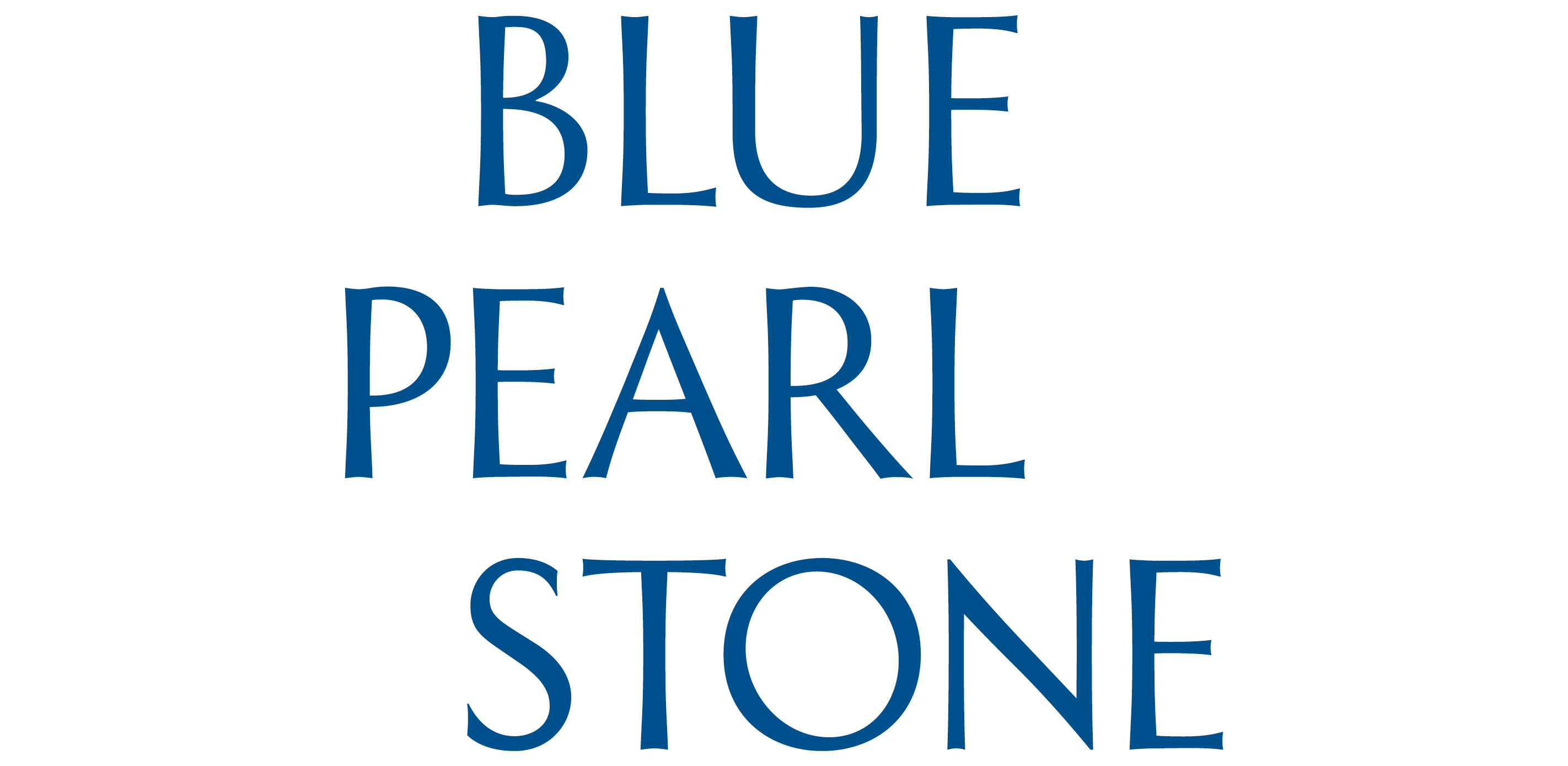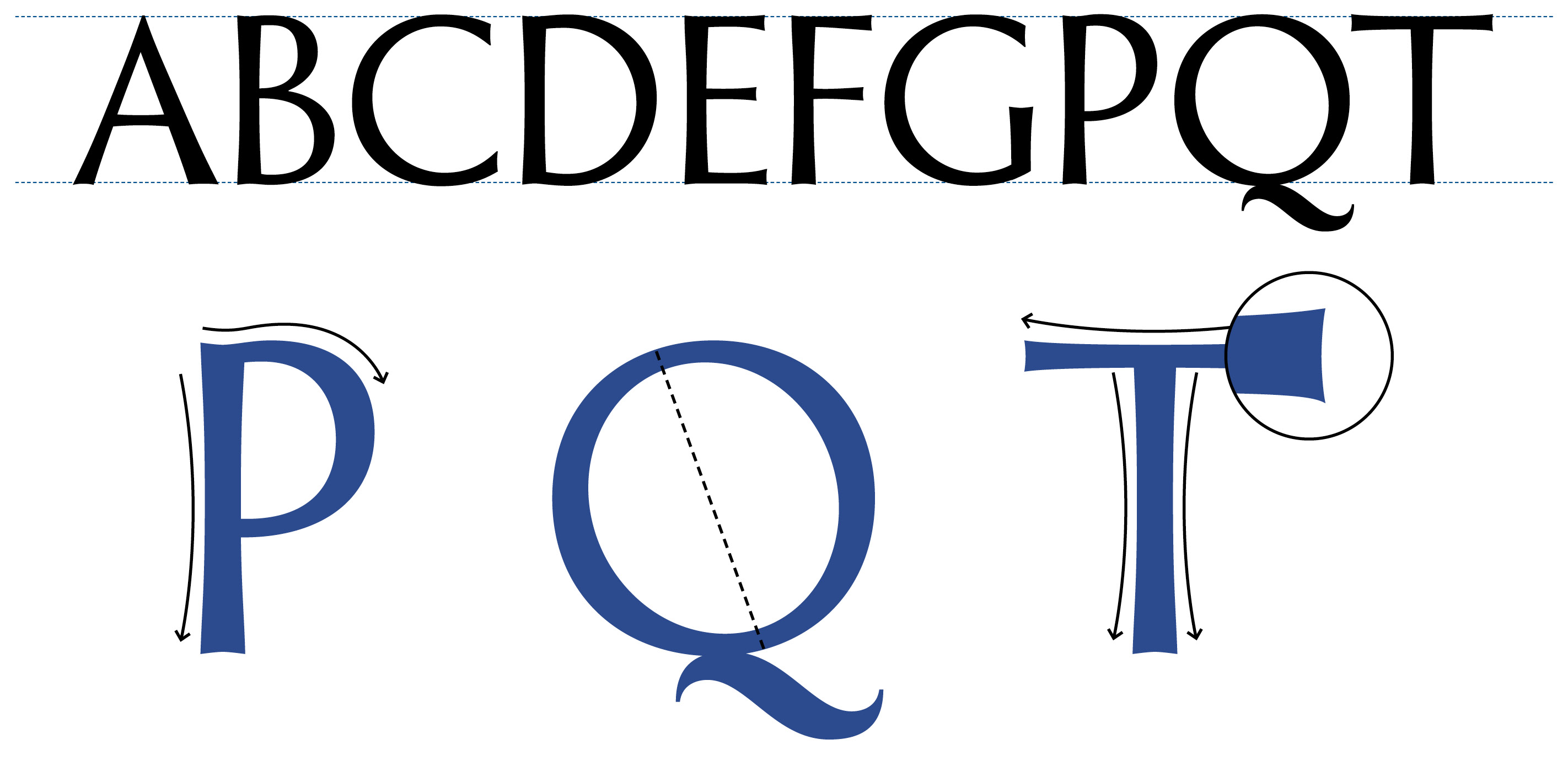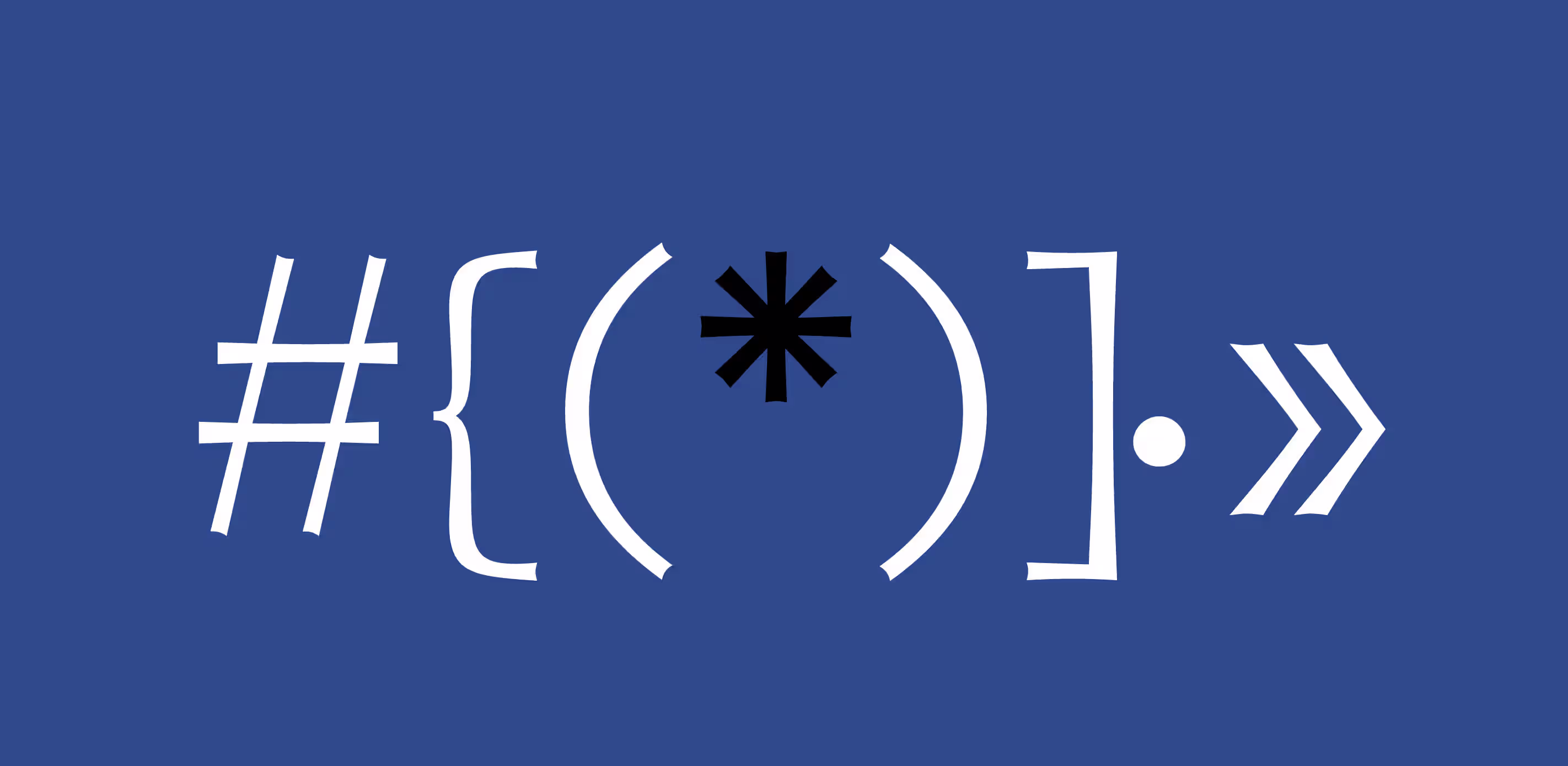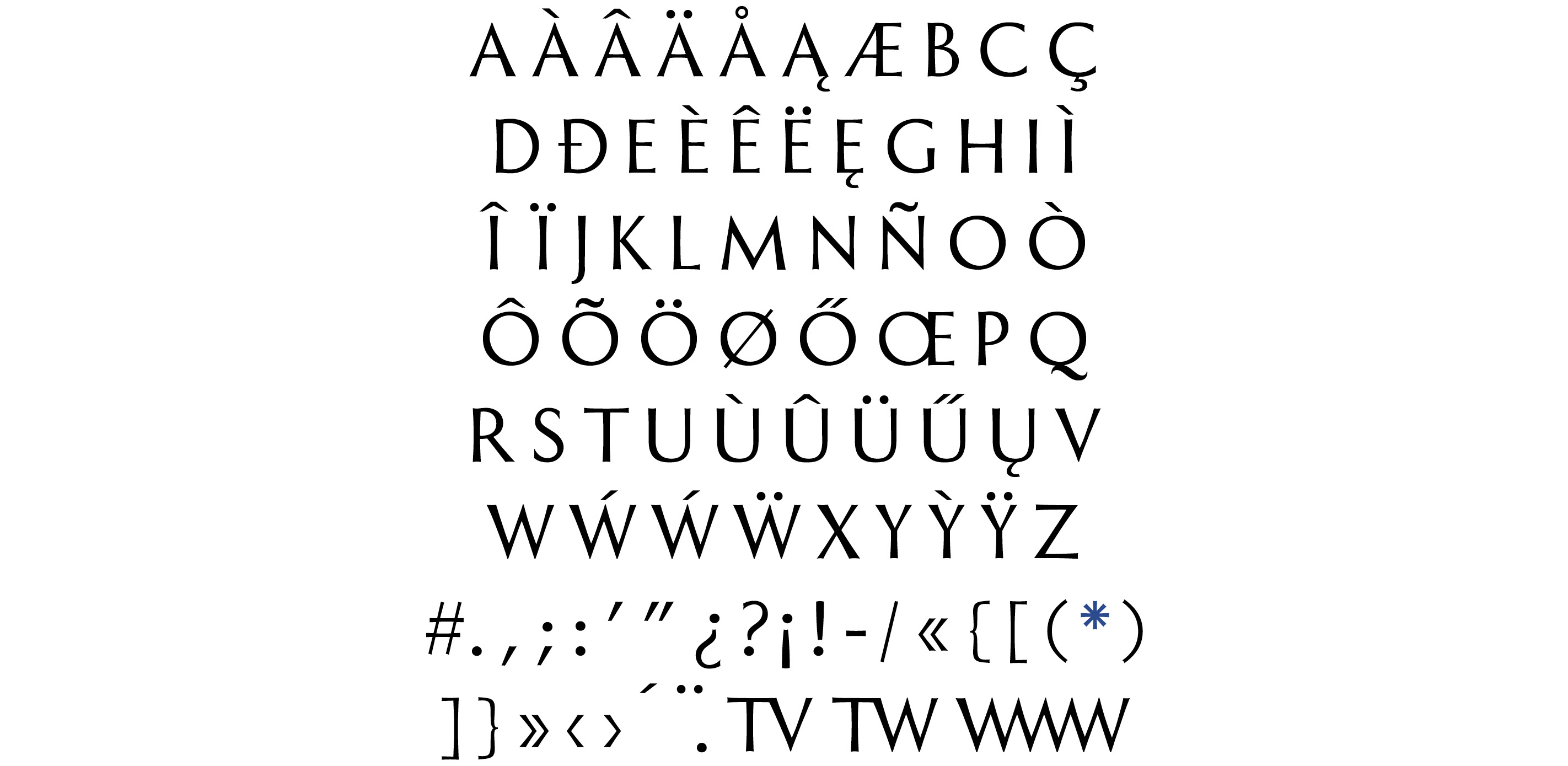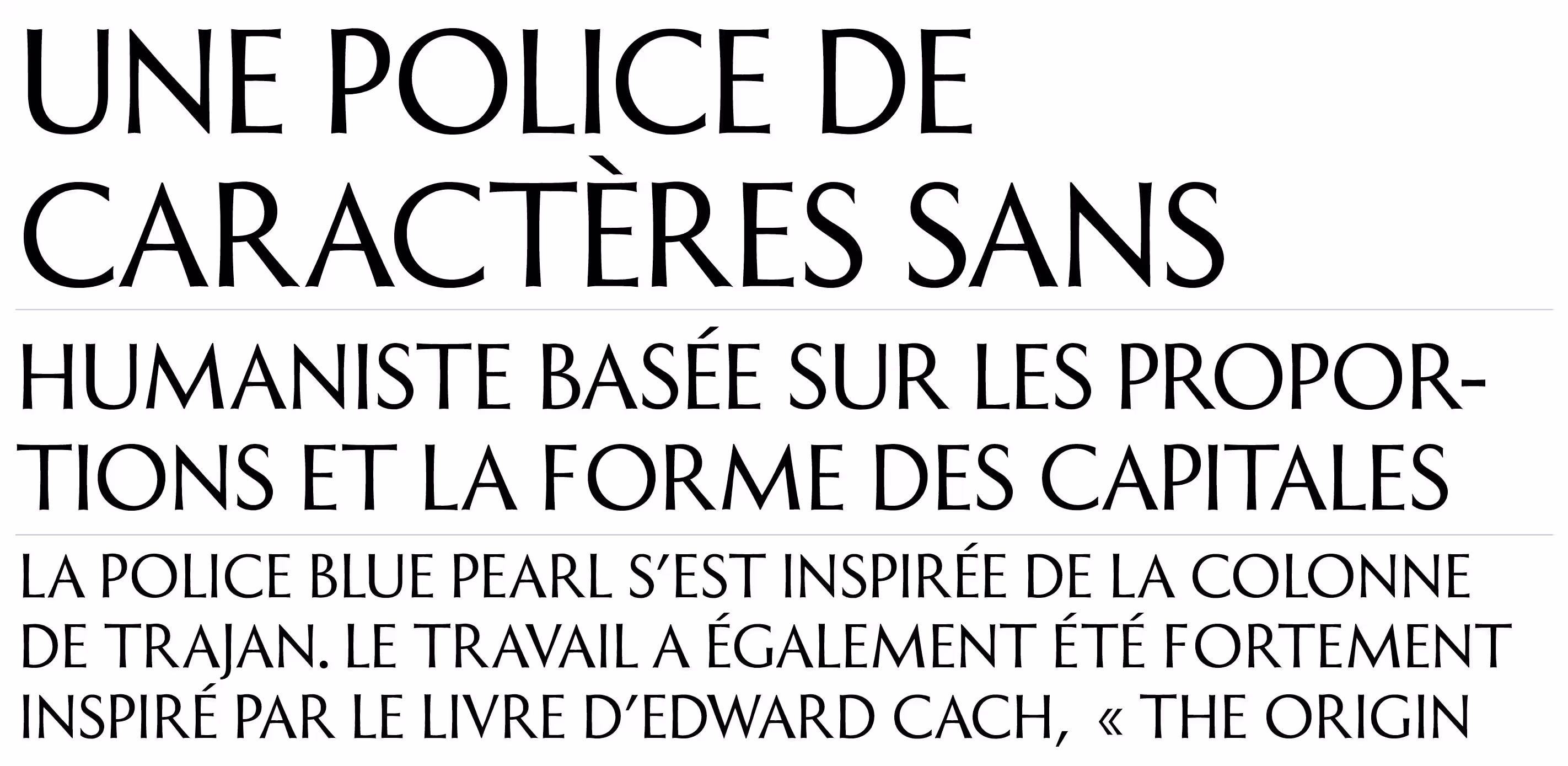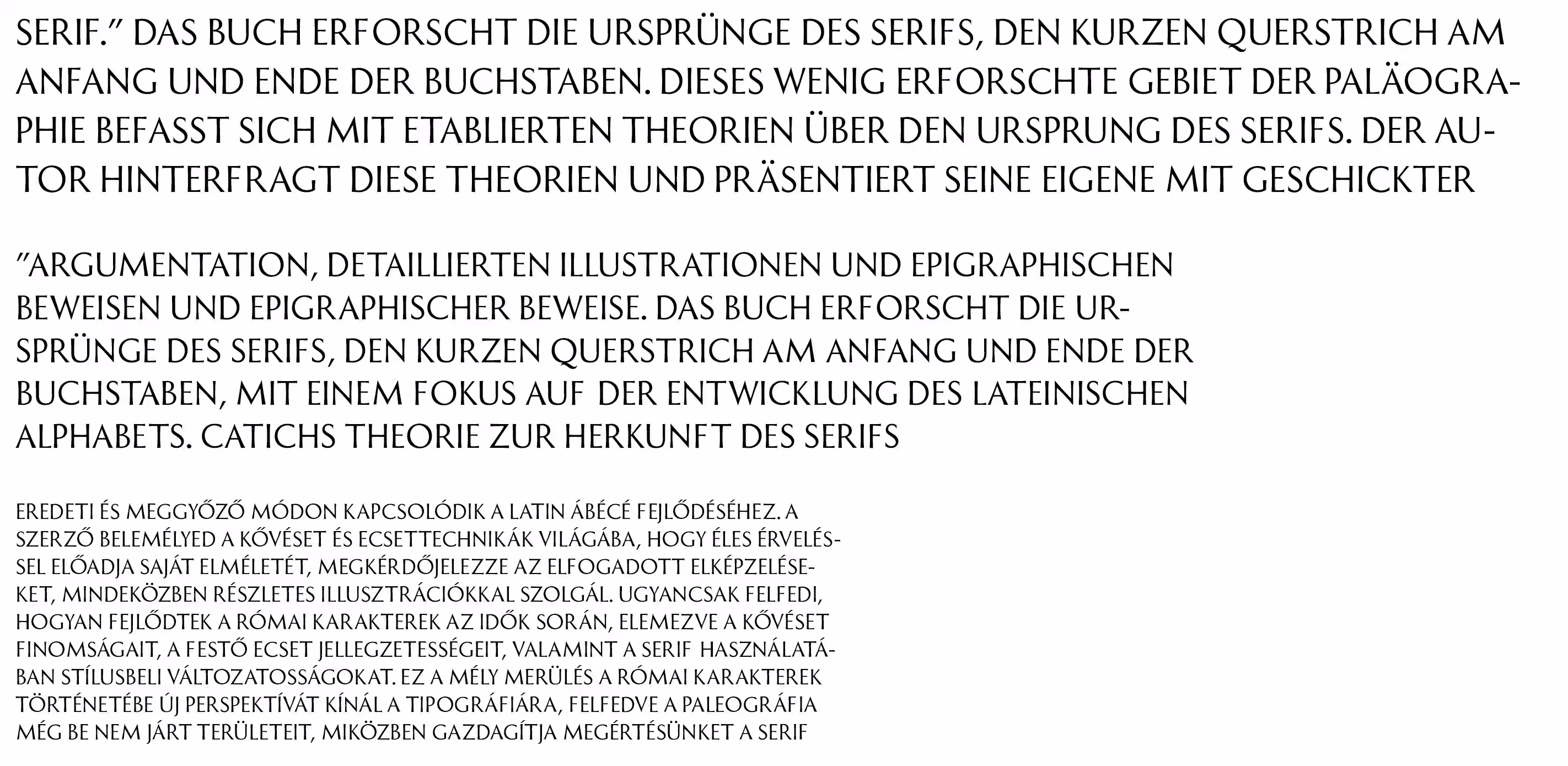
Blue Pearl Sans
Blue Pearl is a custom typeface, a humanist flared sanserif typeface based on the proportions and shapes of the Roman capitals. Currently it consists solely of capital letters, as it was originally designed for a company logo (Blue Pearl Stone, a company based in Chicago, IL, USA). Since then, punctuation marks and diacritics have been added. While it was intended for brief content, it does work in blocks of texts when kept to a small font size.